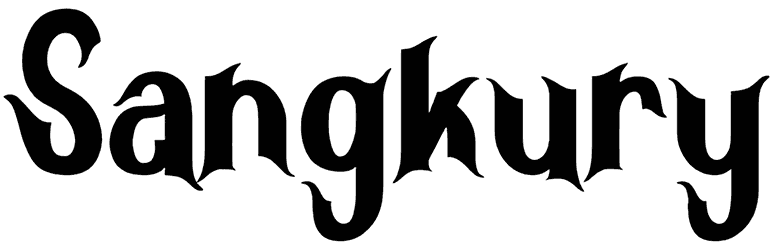
Sangkury Font
Bold letters and small, sharp bumps would create a scary look for your typography. These are the definitions of horror font, and in that category, Sangkury is a brilliant option that makes up for what your content was lacking before it.